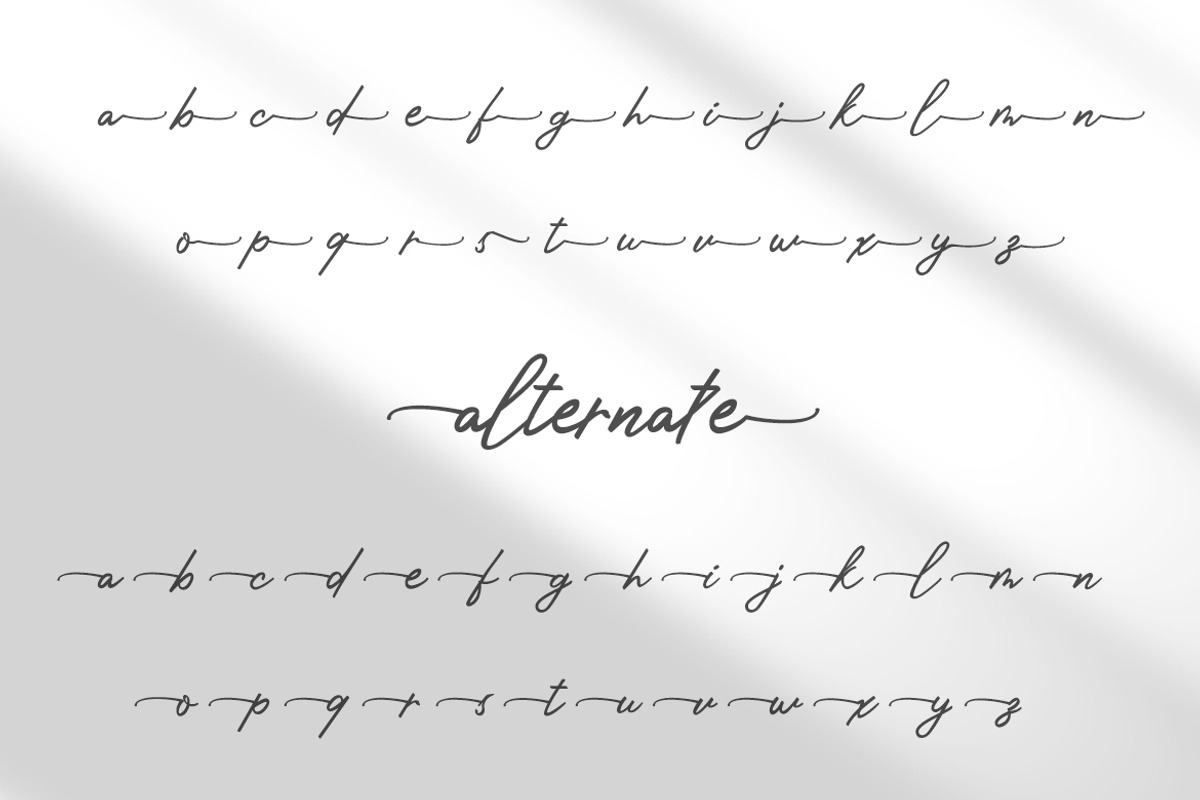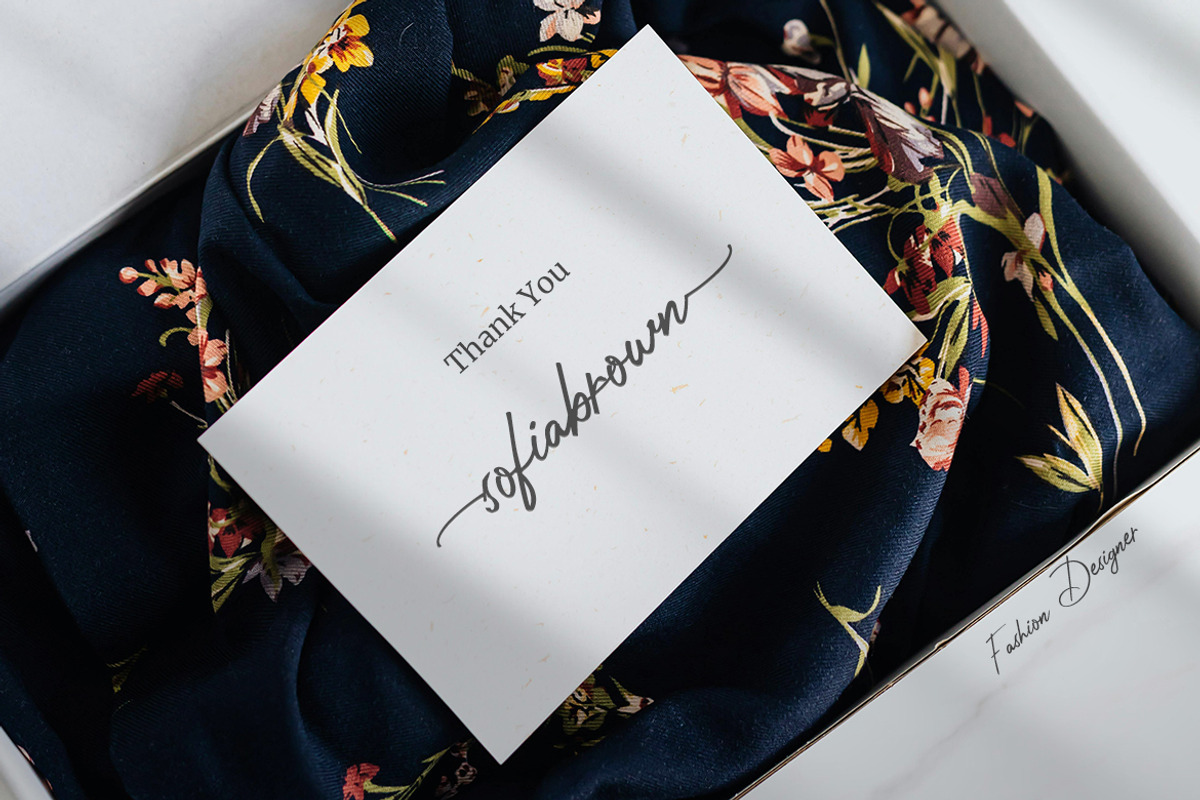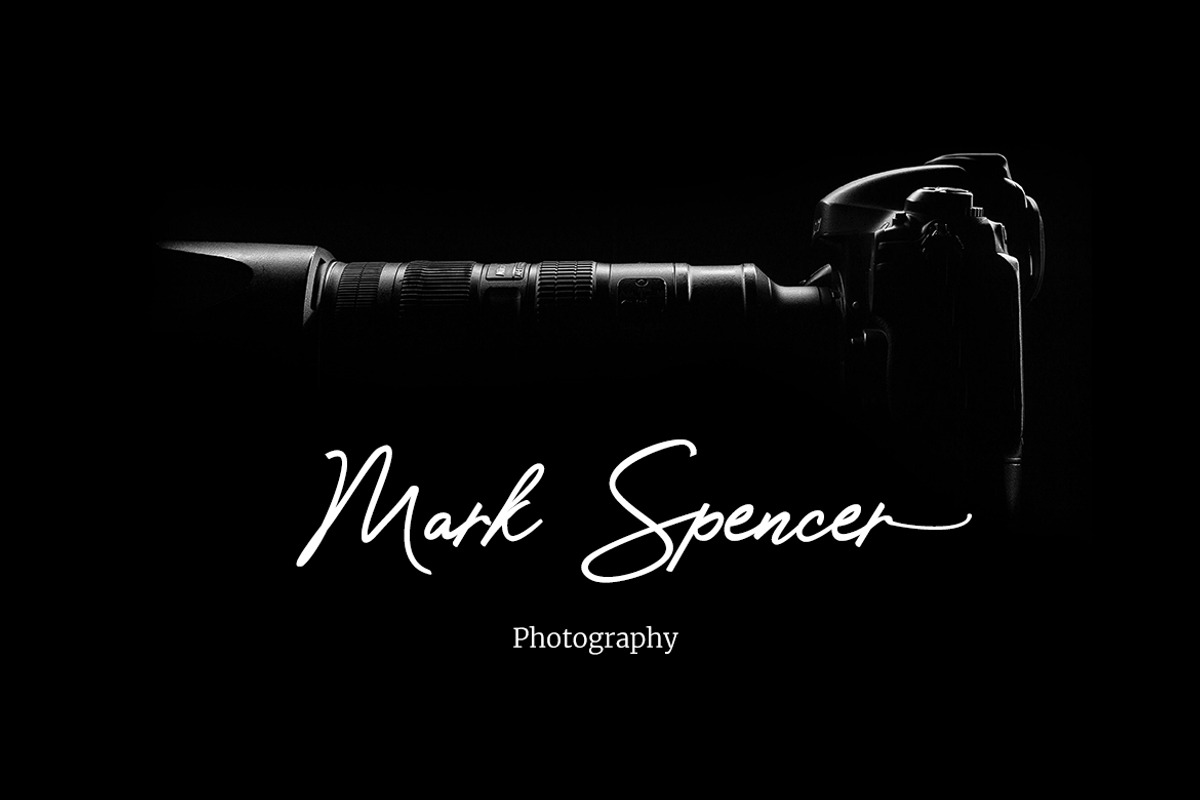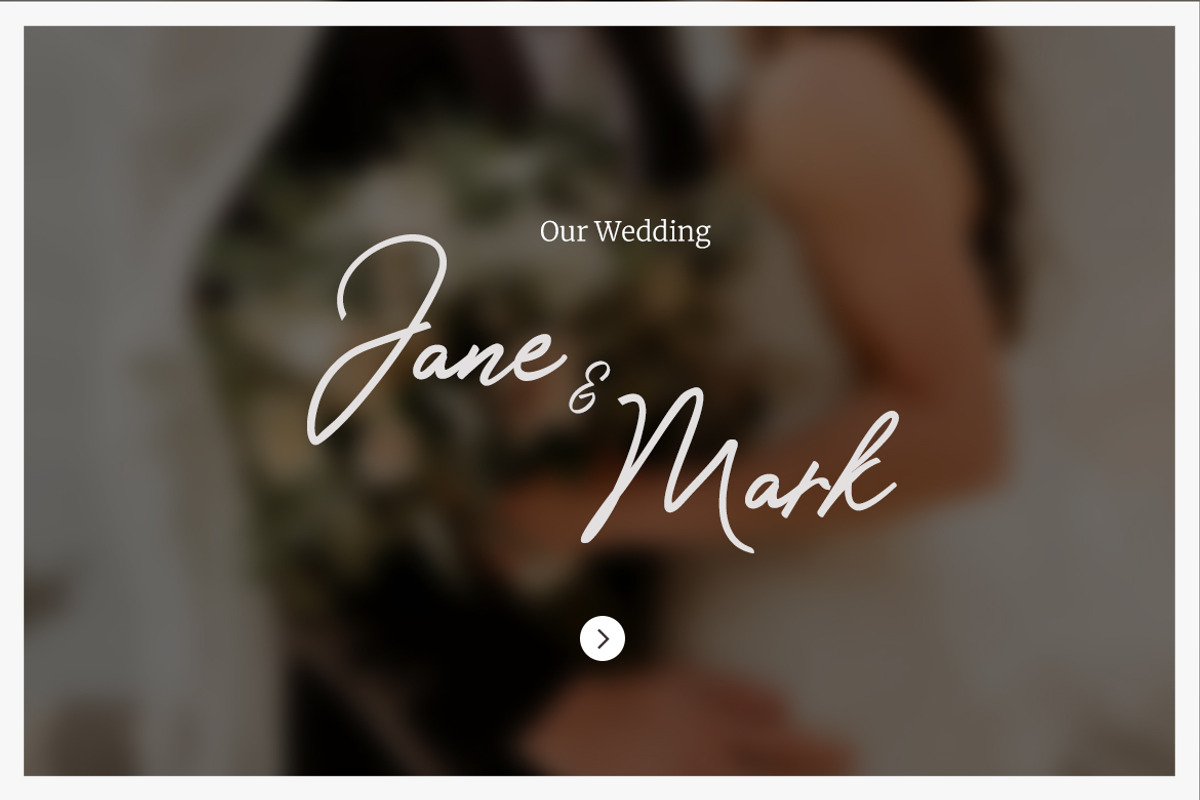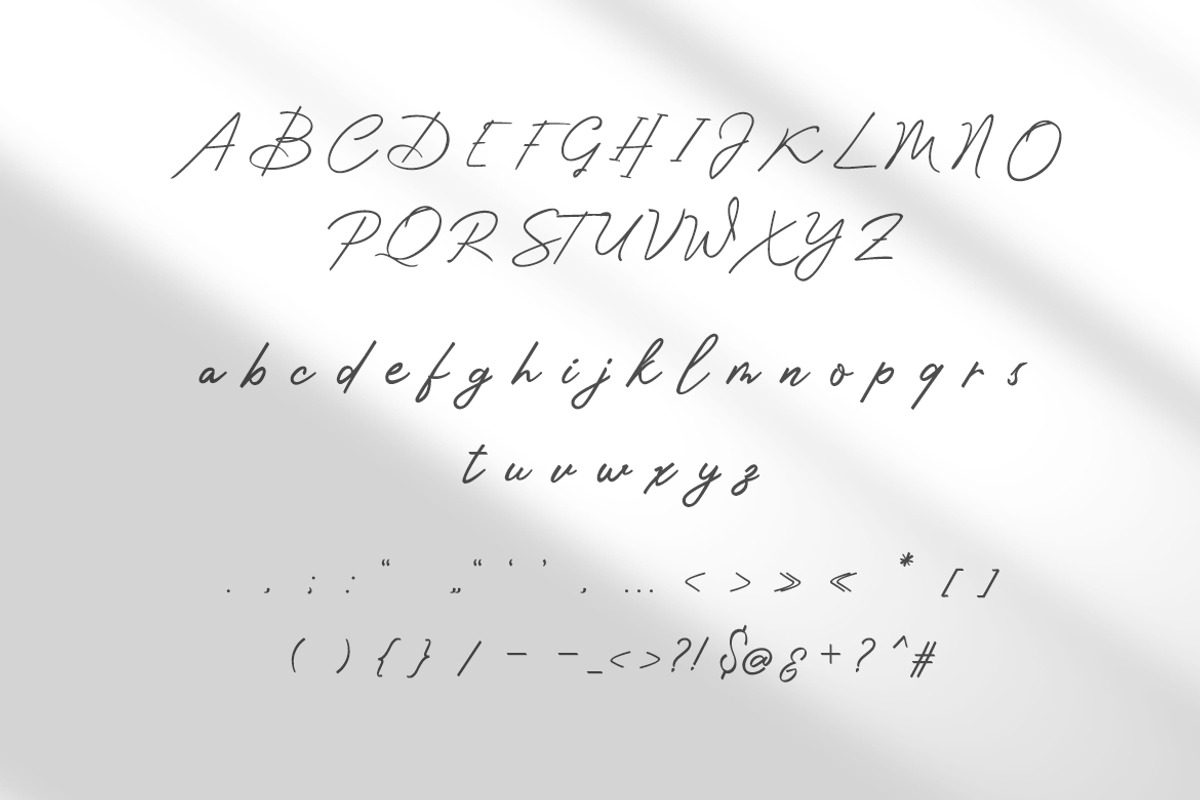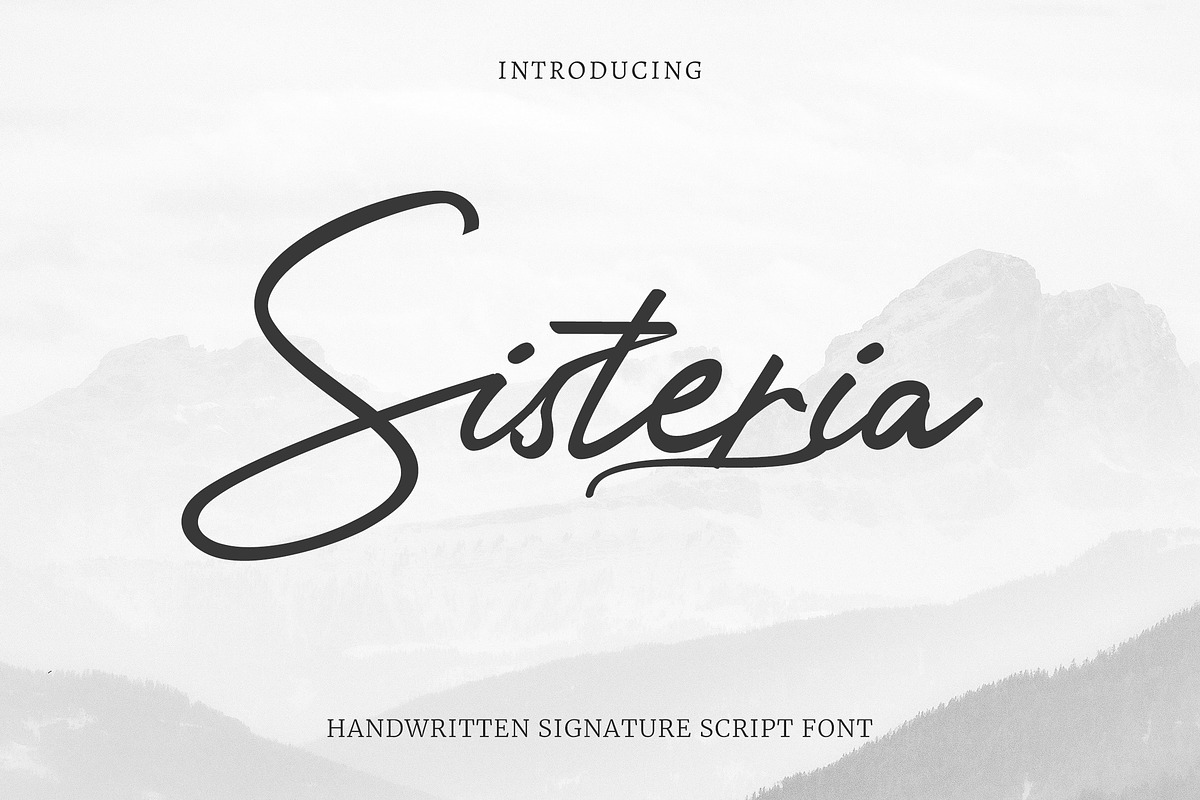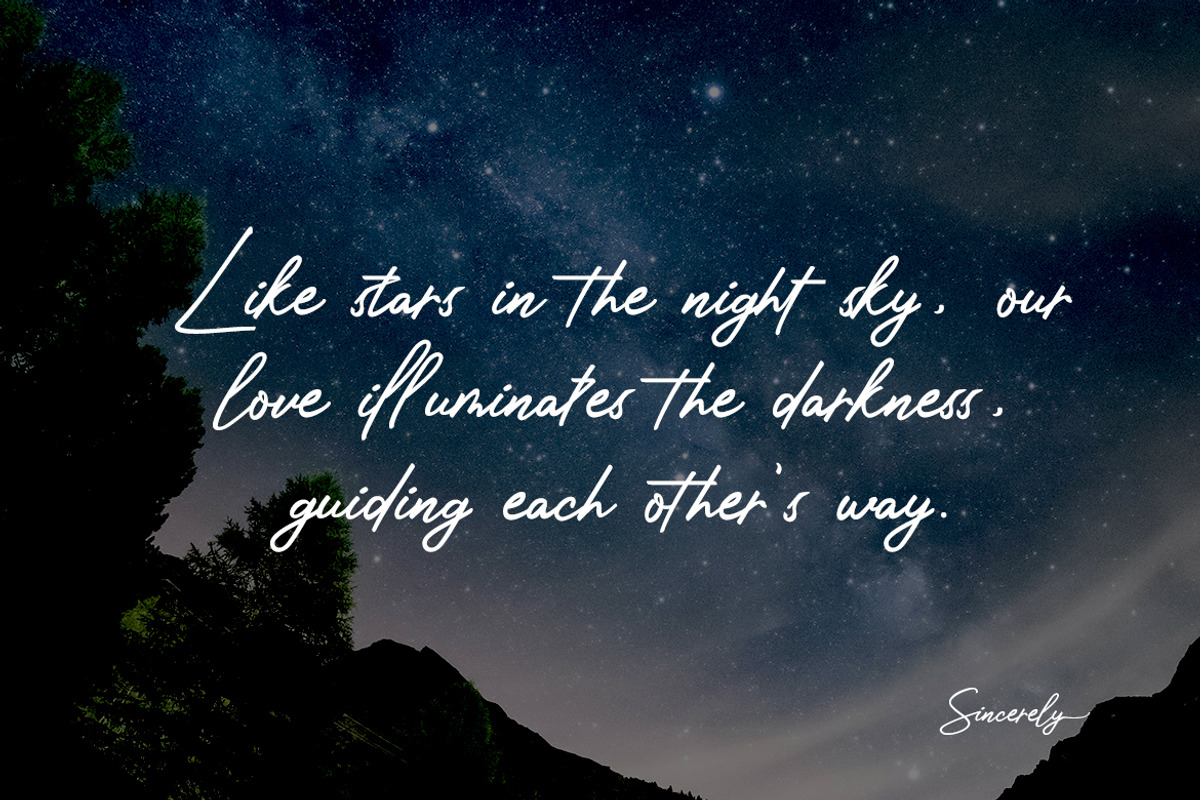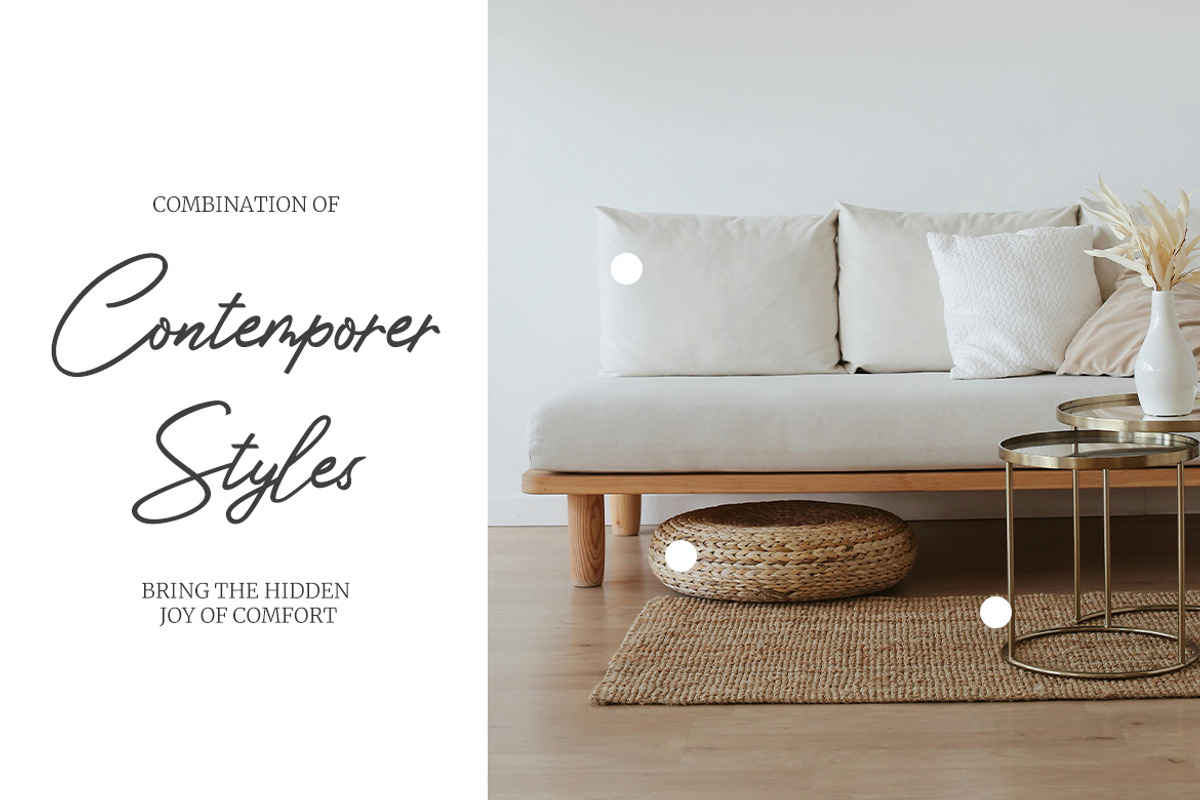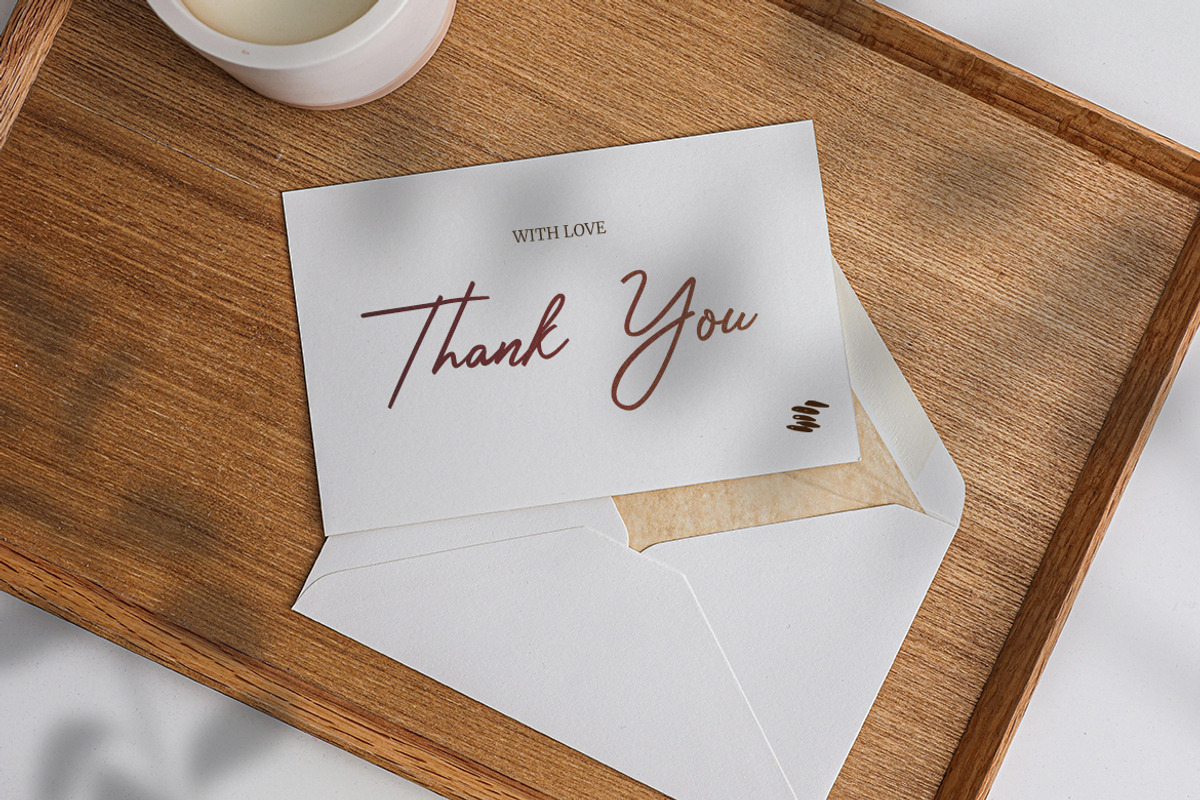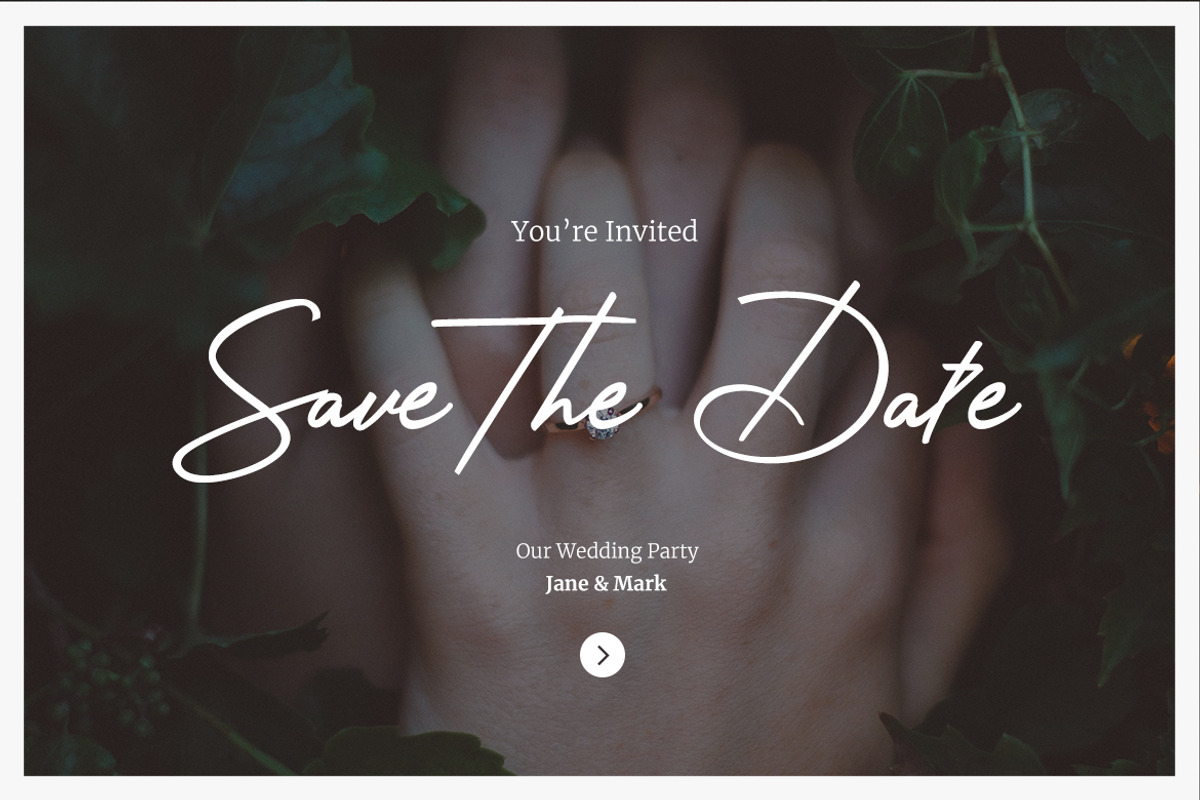
Sisteria Handwritten Signature
Introducing Sisteria Handwritten Signature Script Fonts, the perfect blend of elegance and personality for your projects. Crafted with meticulous attention to detail, Sisteria offers a collection of beautiful handwritten script fonts that will add a touch of sophistication to any design. You'll have the flexibility to use these fonts across various platforms seamlessly. Elevate your branding, invitations, posters, and more with Sisteria Handwritten Signature Script Fonts, where each stroke whispers elegance and charm.